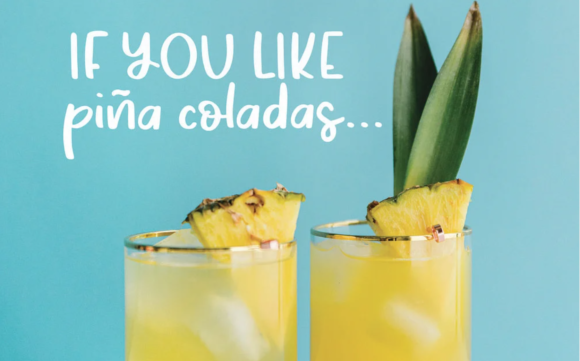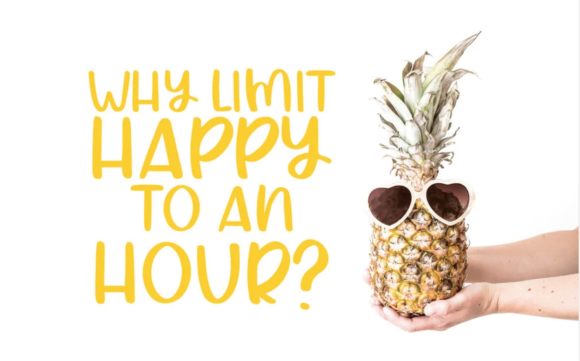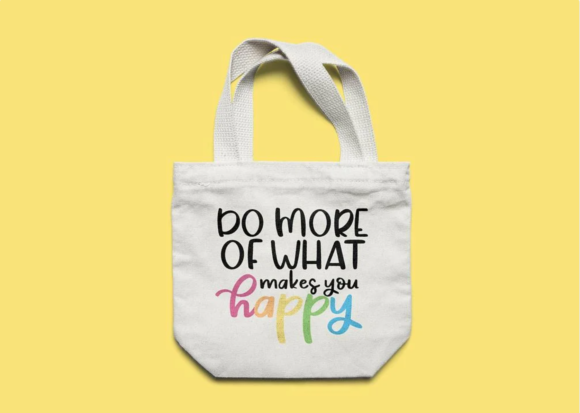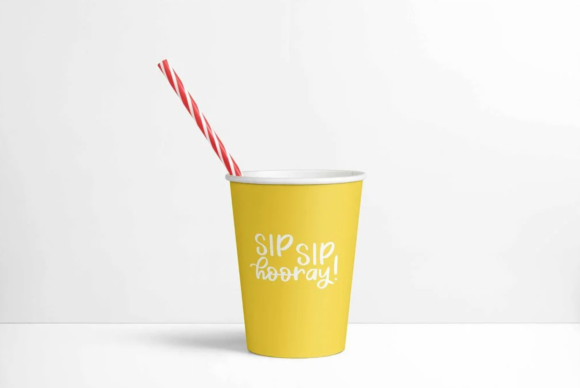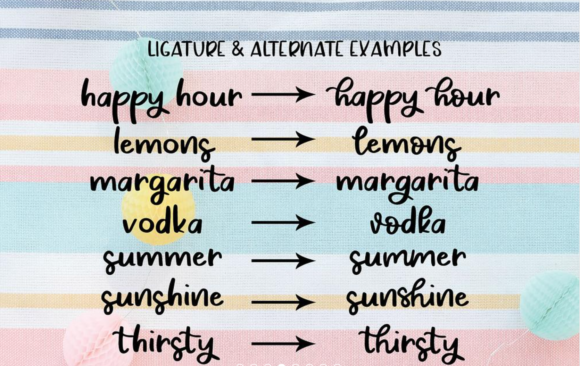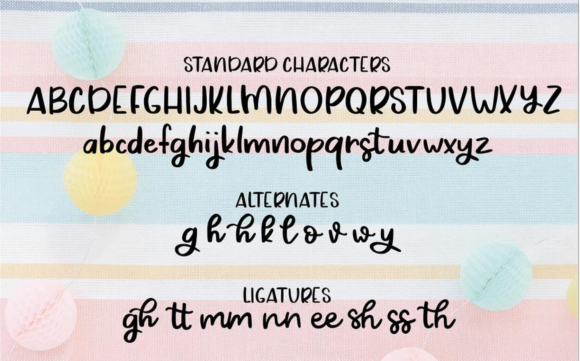
Introduction to Happy Hour Font
As a designer, have you ever found yourself stuck on a creative project, searching for that perfect design resource to bring your idea to life? You’re not alone. I recall the countless hours spent scrolling through font collections, only to find the perfect one – the Happy Hour Font. Its adorable, round letters and adaptable nature make it the ultimate game-changer for any design project.
With its high quality and versatility, the Happy Hour Font is a valuable addition to any designer’s toolkit. Whether you’re working on a branding project, creating social media graphics, or designing a wedding invitation, this font is sure to elevate your design to the next level. Plus, with its transparent background, you can easily layer it over other design elements to create a cohesive look.
Key Features of Happy Hour Font
- Comes in 6 unique font styles, each with its own distinctive flair, ideal for adding personality to your designs.
- Supports a wide range of languages, making it a versatile choice for global creative projects.
- Designed to be highly customizable, allowing you to tailor the font to suit your specific design needs.
- Perfect for use in digital and print projects, including logos, graphics, and marketing materials.
Honest Review: Happy Hour Font
I recently stumbled upon the Happy Hour Font while searching for a fun and quirky design resource for a creative project. I’m excited to share my honest thoughts on this font.
What works well: ✨ I appreciate the high quality and unique design of this font. It’s perfect for adding a touch of personality to any project, from social media graphics to print materials. The font is also free to download, which is always a bonus. I love that it includes a transparent background option, making it easy to overlay text on any image.
- Unique design
- High quality
Limitations: ⚠️ While I love the Happy Hour Font, I do find it a bit limited in terms of versatility. It’s best suited for projects with a playful or festive tone, and may not be the best choice for more formal or professional designs. Additionally, the font could benefit from more character styles and variations to give users more creative options.
Overall impression: I think the Happy Hour Font is a great addition to any designer’s toolkit. With its unique design and high quality, it’s perfect for adding a touch of personality to creative projects. While it may have some limitations, I believe it’s a valuable resource for designers looking for a fun and quirky font.
Happy Hour Font
Tips for Getting the Most Out of Happy Hour Font
Use the Happy Hour Font with a transparent background to create a modern and sleek design. Experiment with different font sizes and styles to add visual interest to your design. You can also pair the Happy Hour Font with other design elements, such as graphics and images, to create a unique and eye-catching design.
Common Use Cases for Happy Hour Font
The Happy Hour Font is a versatile design resource that can be used for a variety of creative projects, including social media graphics, presentations, and more. It’s also a great choice for designing invitations, menus, and other promotional materials.